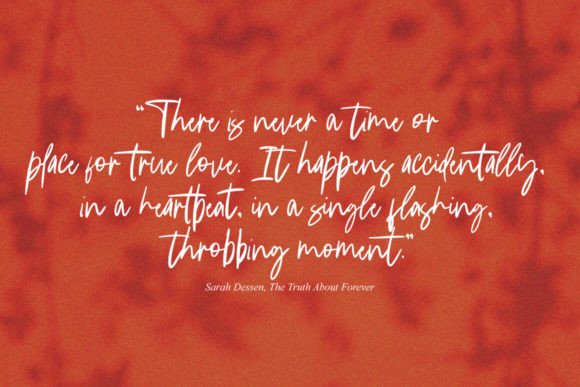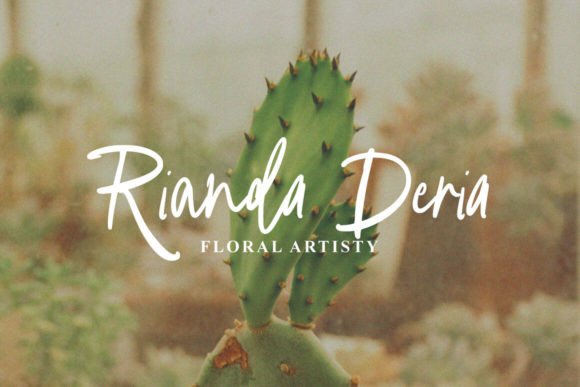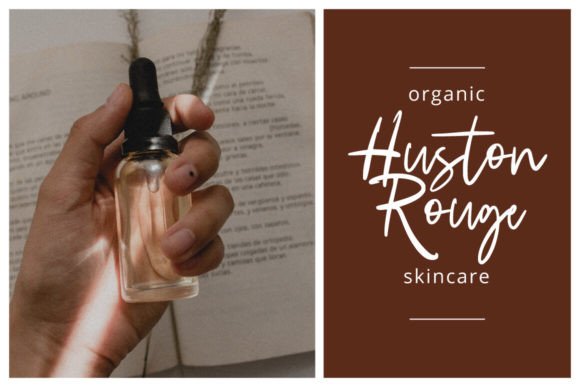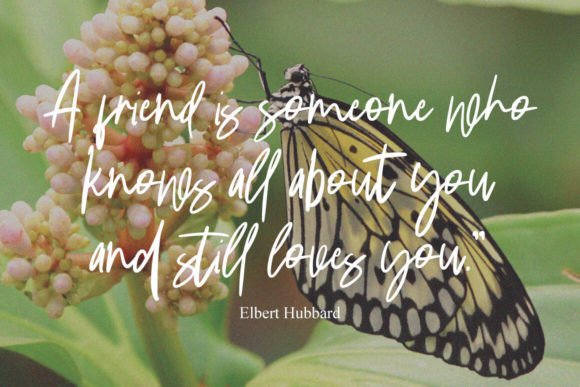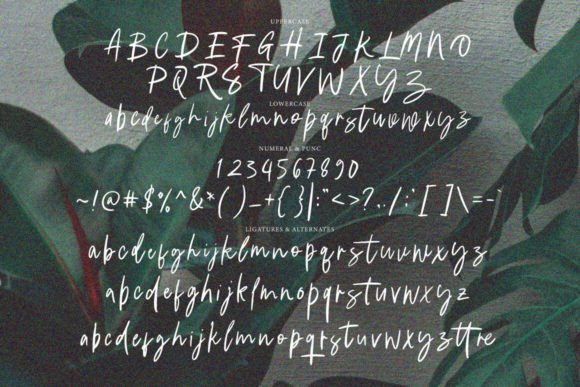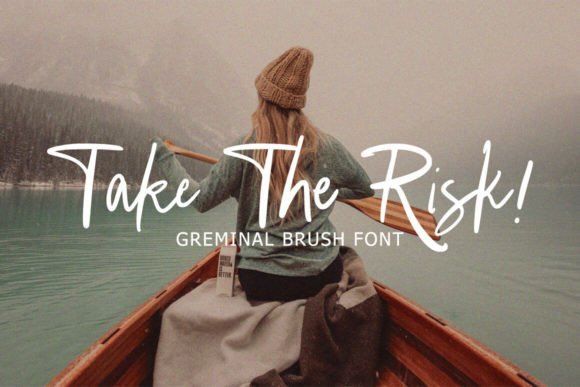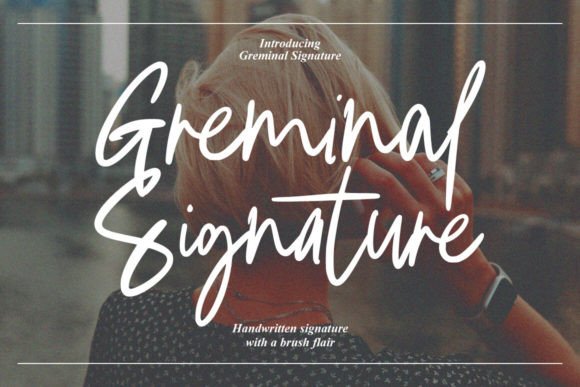
Greminal Signature Font: Elevate Your Designs with a Handmade Touch
Are you looking for a font that adds a personal touch to your designs? Look no further than the Greminal Signature Font, a beautiful script font that mimics the charm of handmade signatures. With its decorative characters, dancing baseline, and extensive range of glyphs, this font is perfect for designers and crafters seeking to create stunning invitations, greeting cards, branding materials, business cards, quotes, posters, and more.
A Handmade Signature Style like No Other
The Greminal Signature Font boasts a unique, handmade signature style that sets it apart from other fonts. Its characters are designed to resemble those written with a brush, giving your designs a warm, organic feel. The font’s dancing baseline adds a touch of elegance and sophistication, making it ideal for a wide range of applications.
Extensive Glyph Library: 250+ Glyphs at Your Fingertips
One of the standout features of the Greminal Signature Font is its extensive glyph library. With over 250 glyphs, you’ll have access to a vast array of characters, including alternative letters, swashes, and ligatures. This means you can create unique and varied designs without ever having to repeat yourself.
Open Type Features for Ultimate Flexibility
The Greminal Signature Font comes with a range of Open Type features that allow you to customize your designs even further. These features include:
- Swash: Add a touch of drama to your designs with elegant swashes.
- Stylistic Sets: Experiment with different character combinations to create unique looks.
- Stylistic Alternates: Switch between alternate characters to add variety to your designs.
- Ligature: Create beautiful connections between characters for a more fluid look.